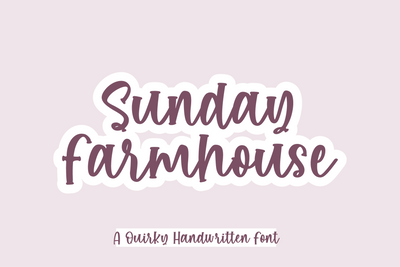
Sunday Farmhouse - A Quirky Handwritten Font
Sunday farmhouse is a quirky handwritten font which is perfect for your project such as wedding invitations, greeting cards, t-shirts and many more.